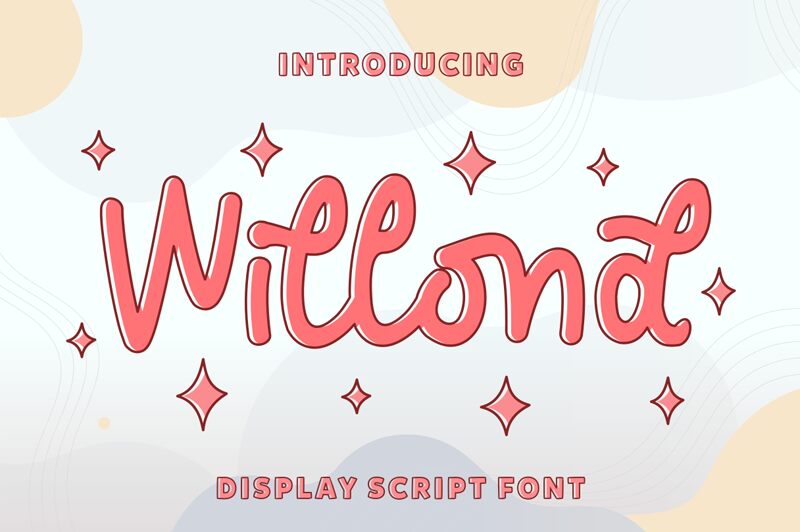
Willond
Introducing Willond - a beautiful script font designed by ©zeenesia. Perfect for creating elegant, eye-catching designs, Willond is ideal for adding a personal touch to wedding invitations, greeting cards, posters and other creative projects.